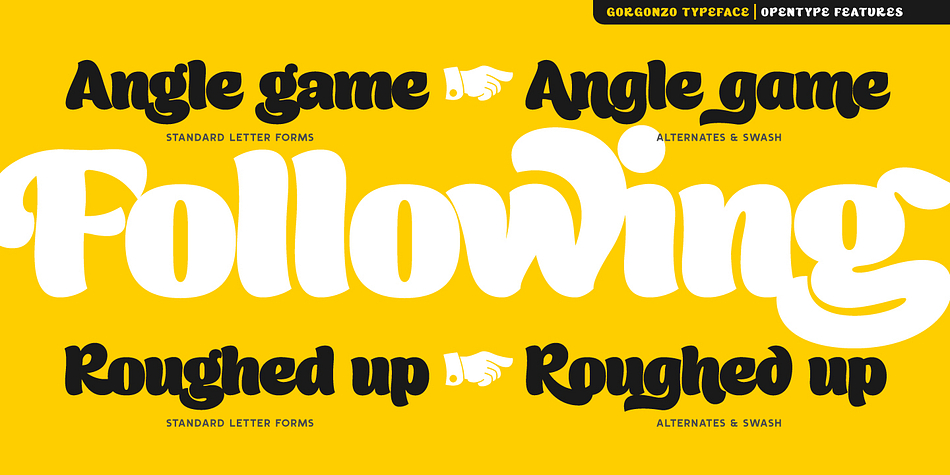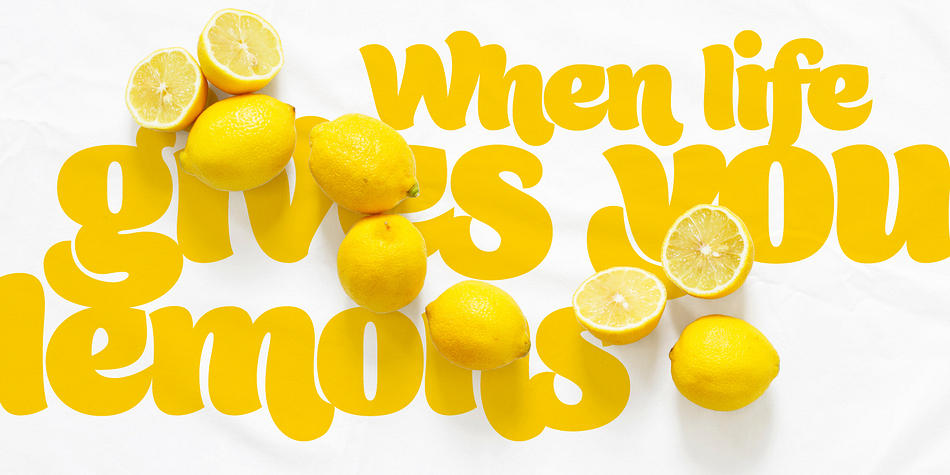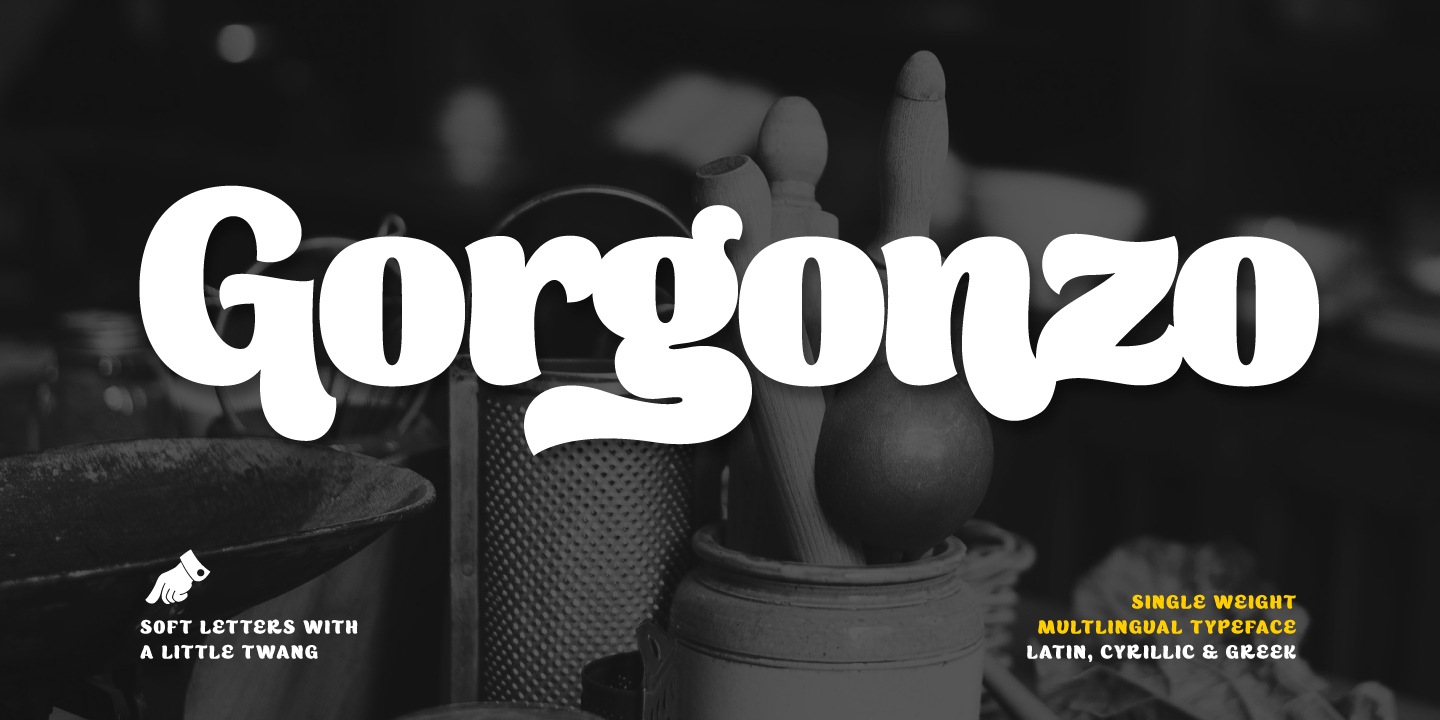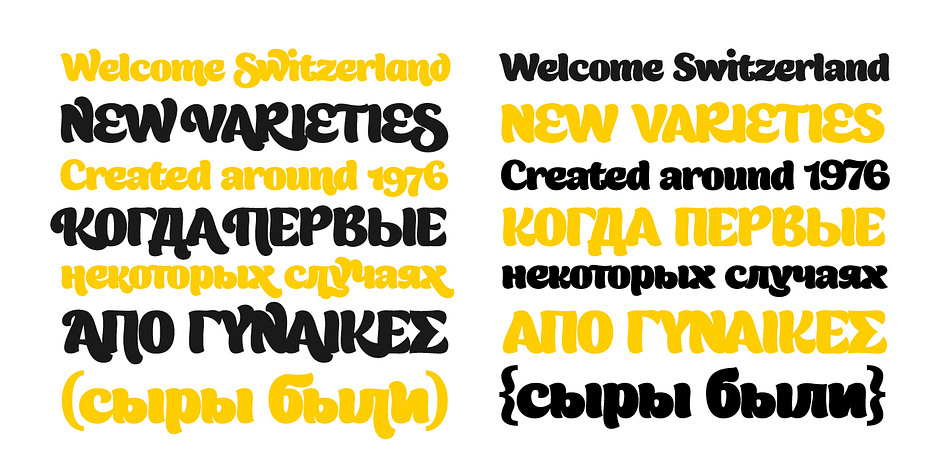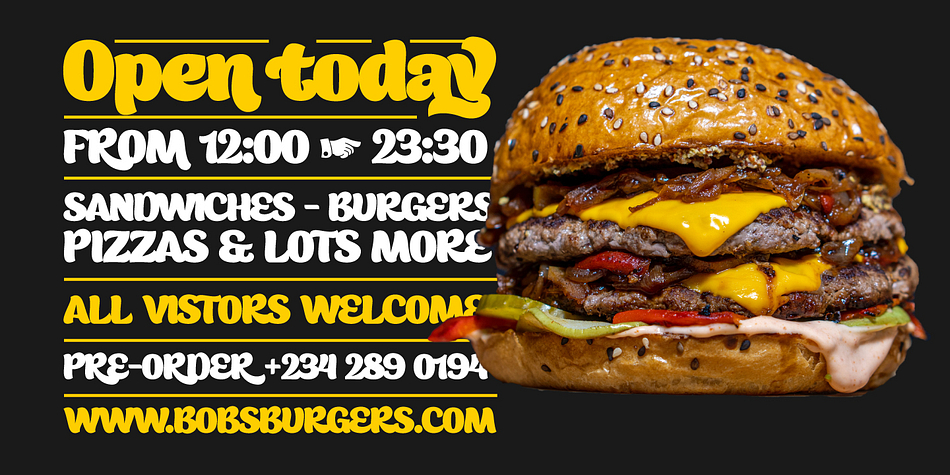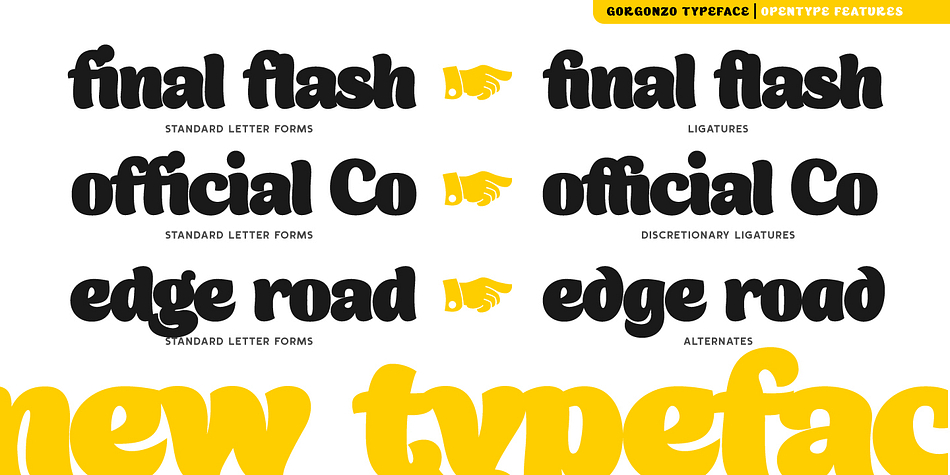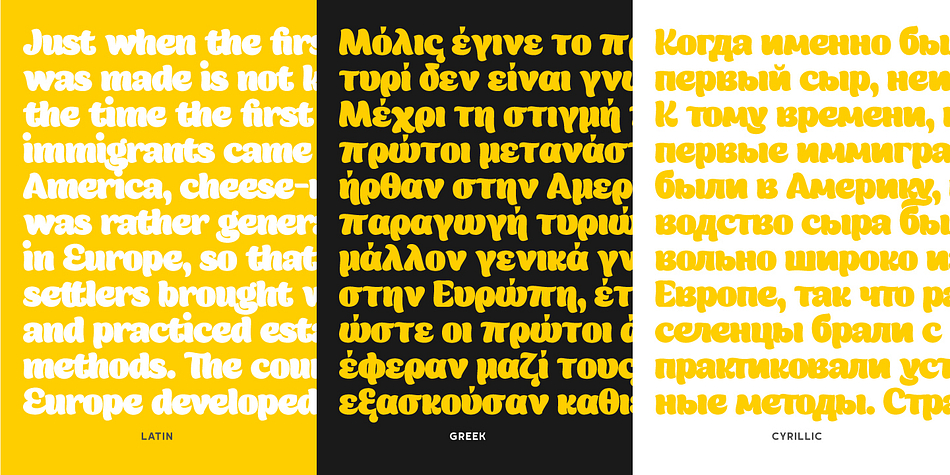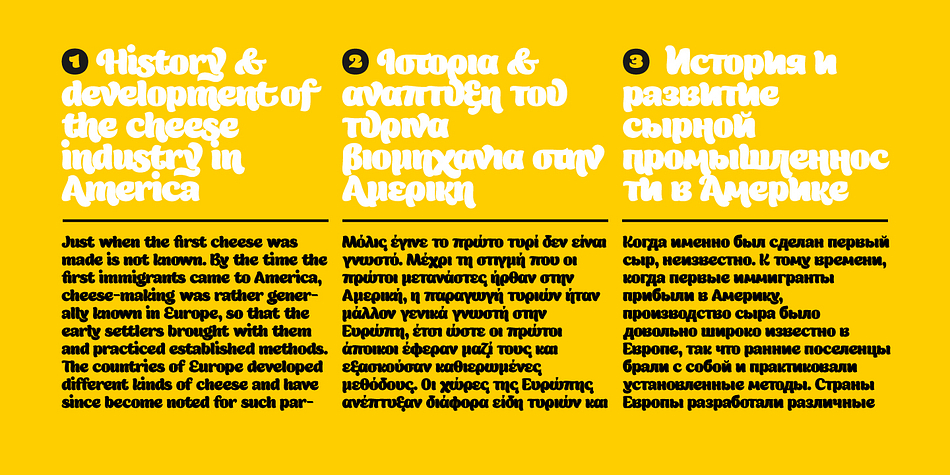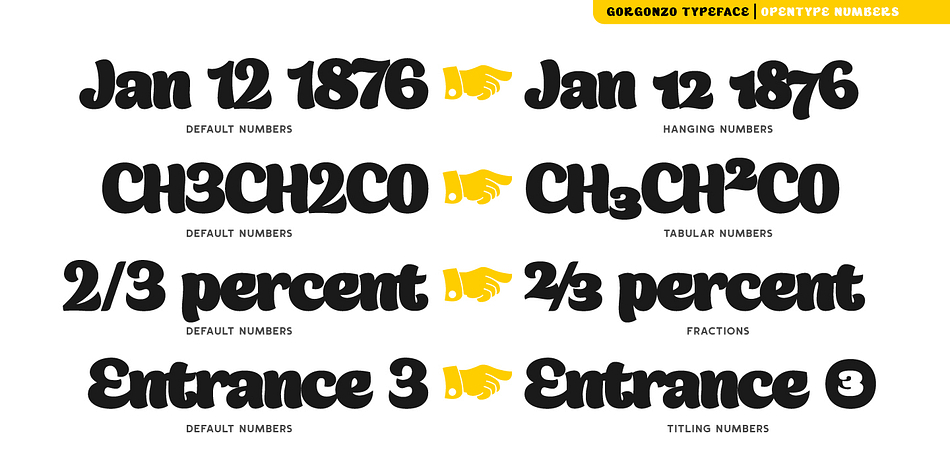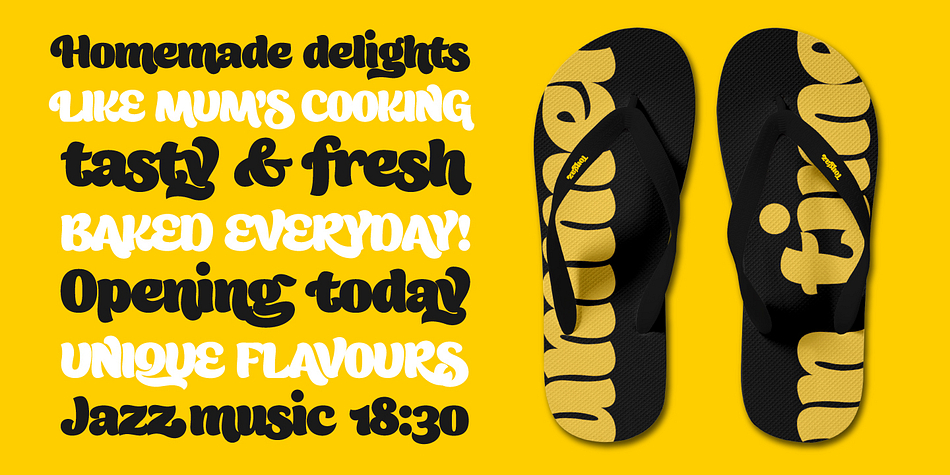
Designed by Michael Parson, Gorgonzo is a brush display and retro font published by Typogama.
Gorgonzo is a creamy new bold typeface designed for attention grabbing headlines. Inspired by a blend of calligraphic strokes and printed letters, it includes a large character set that covers extended Latin, Greek and Cyrillic.
Filled with a wide selection of Opentype features, this single weight offers a range of numbers, alternate letters, ligatures and even some typographic fleurons.